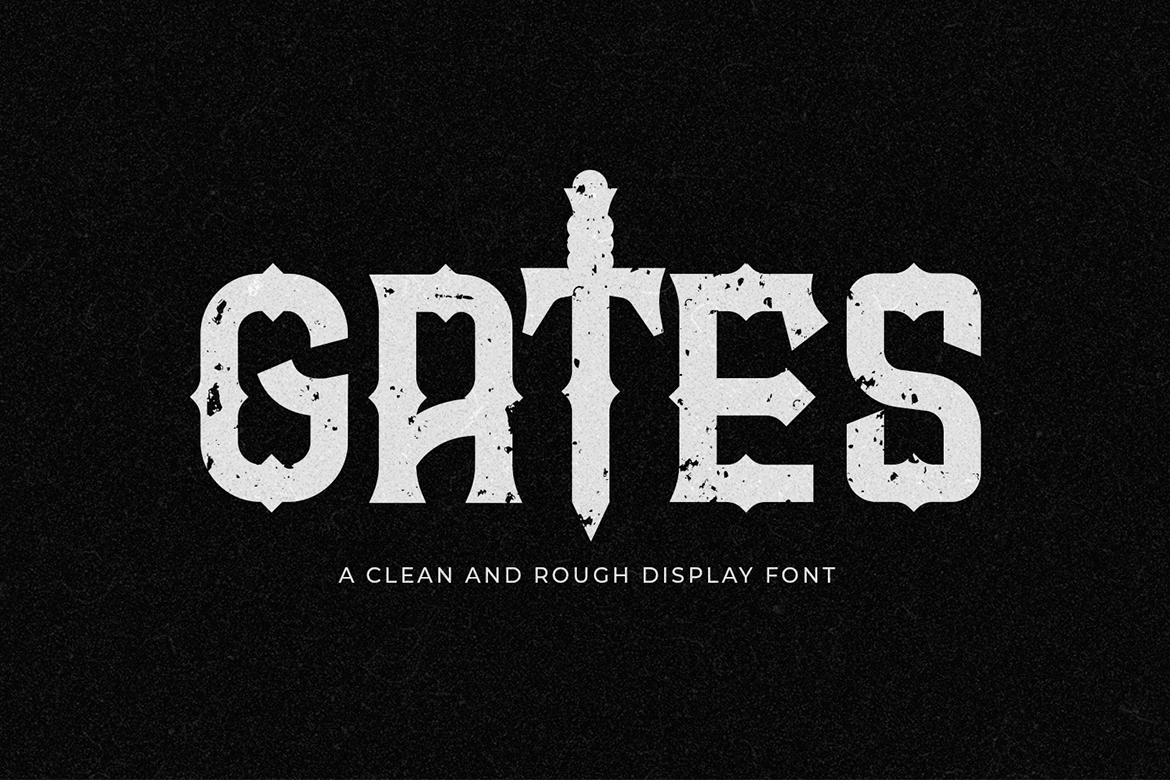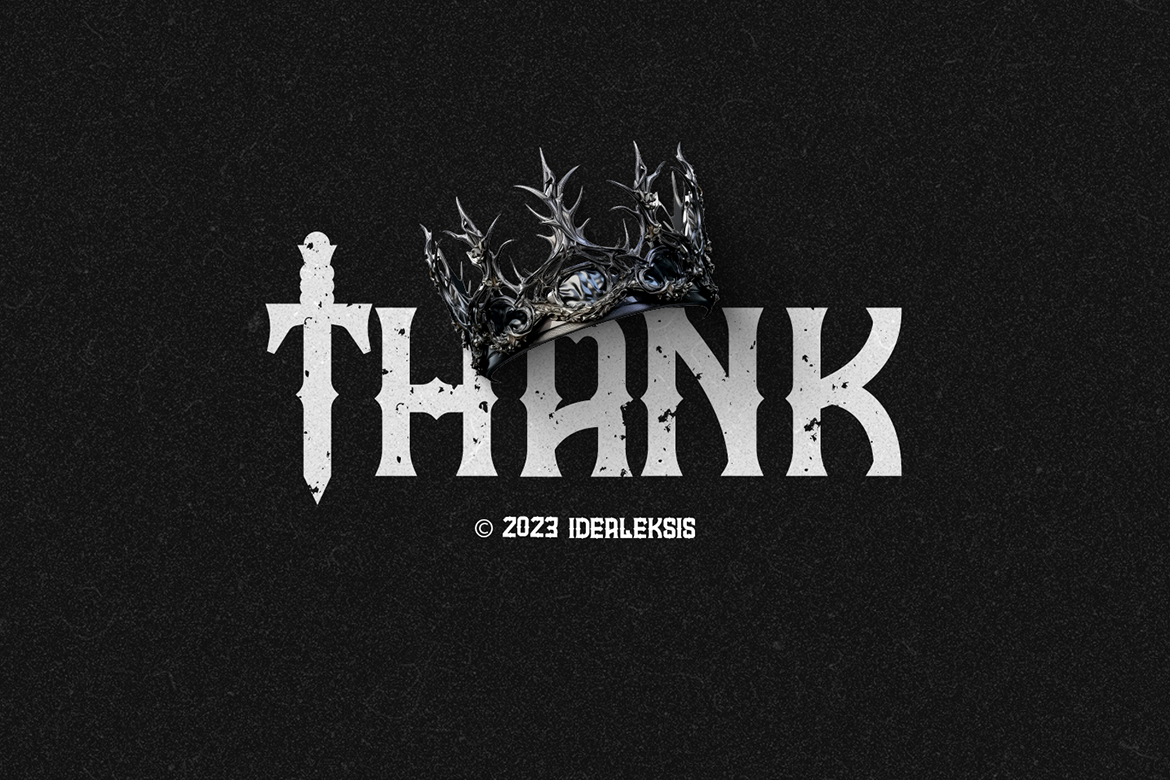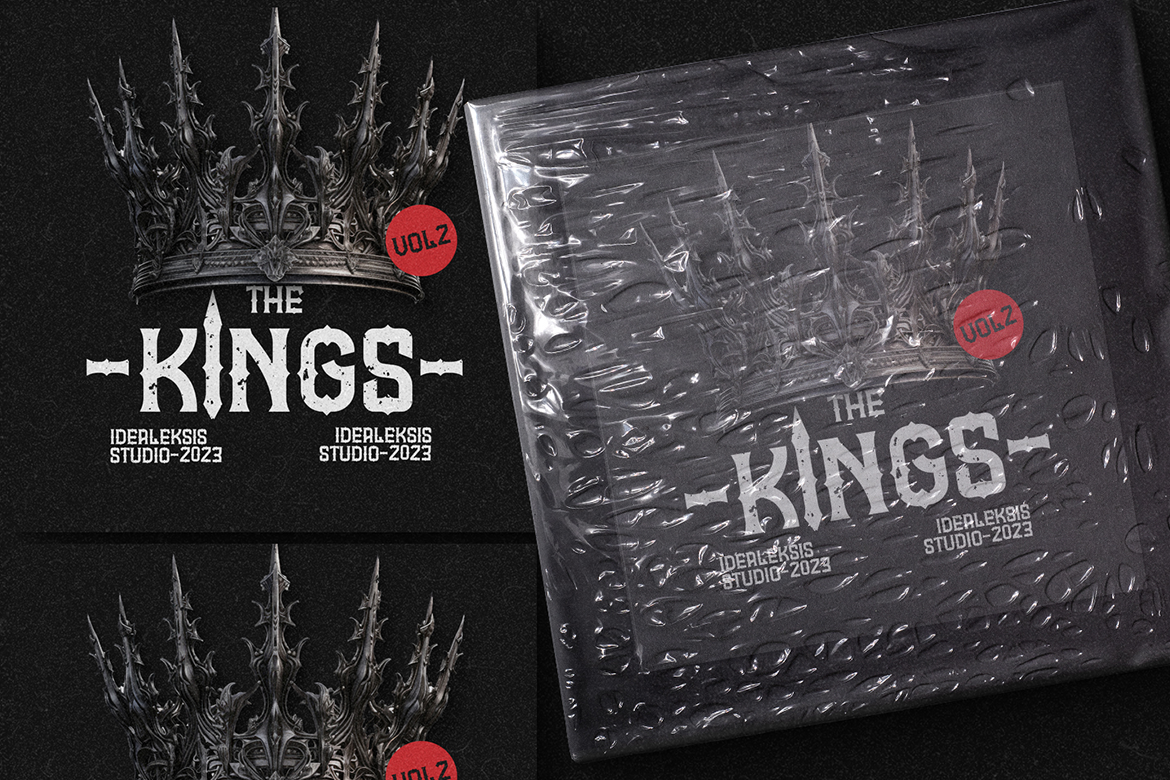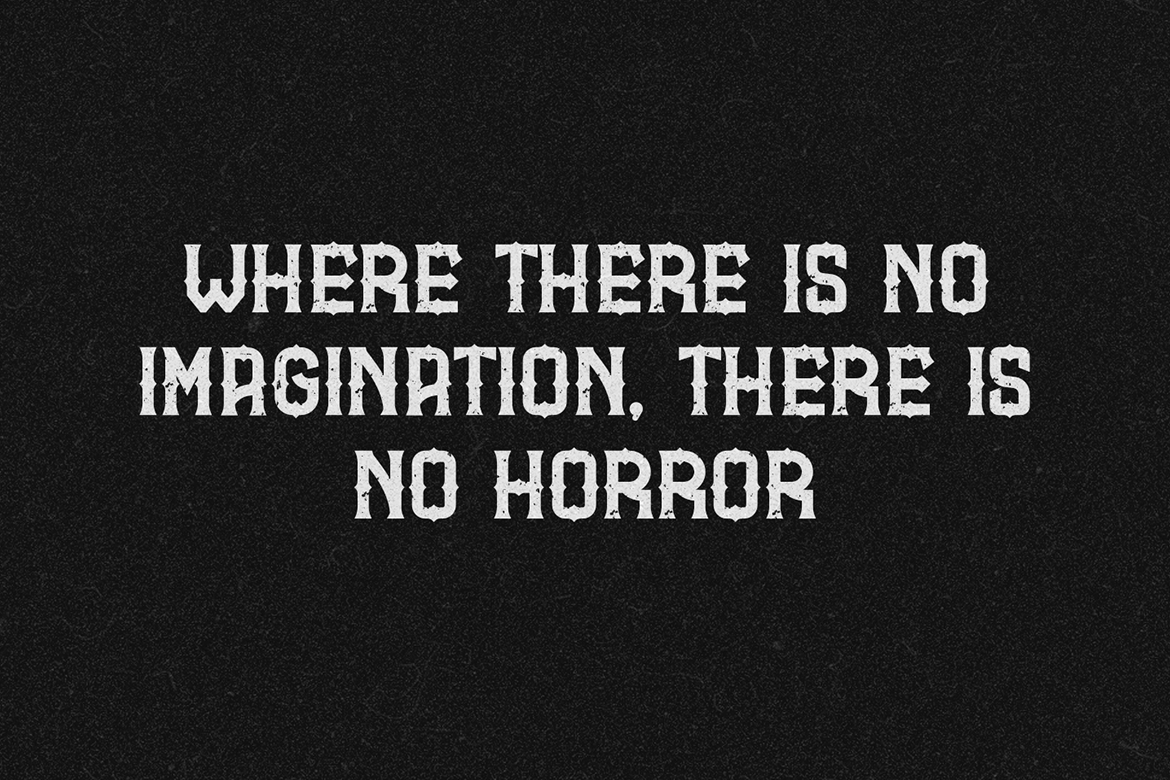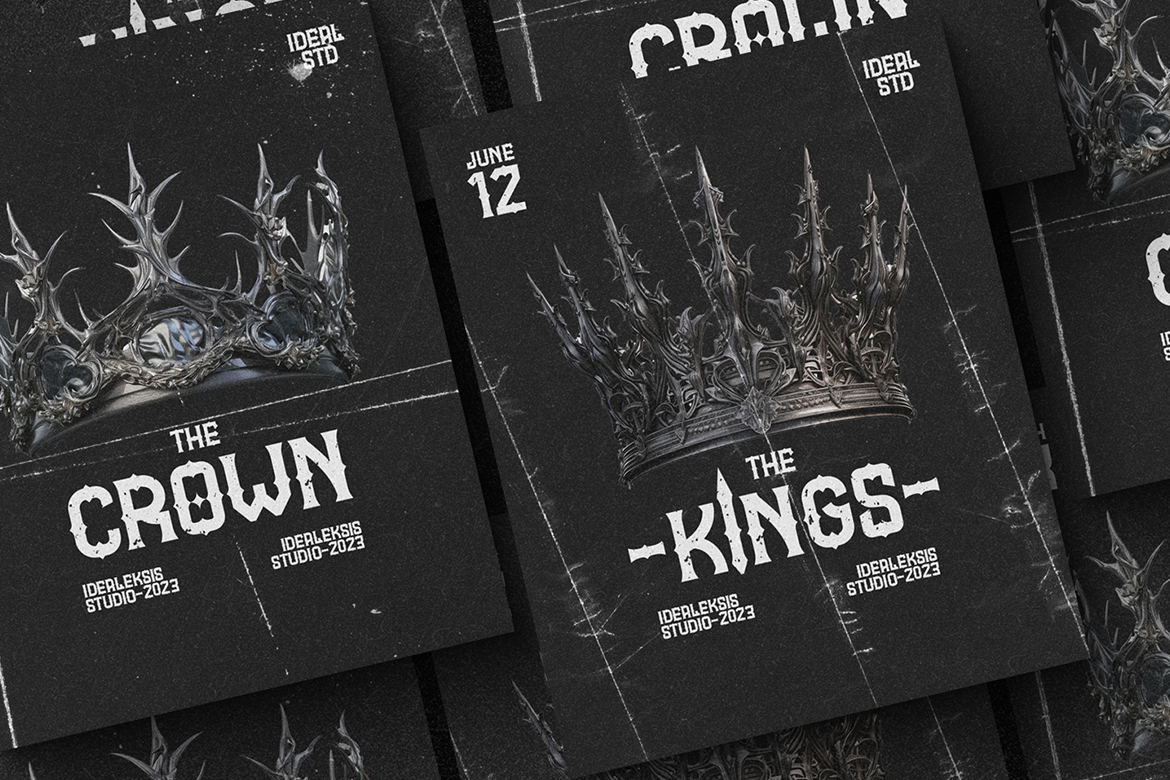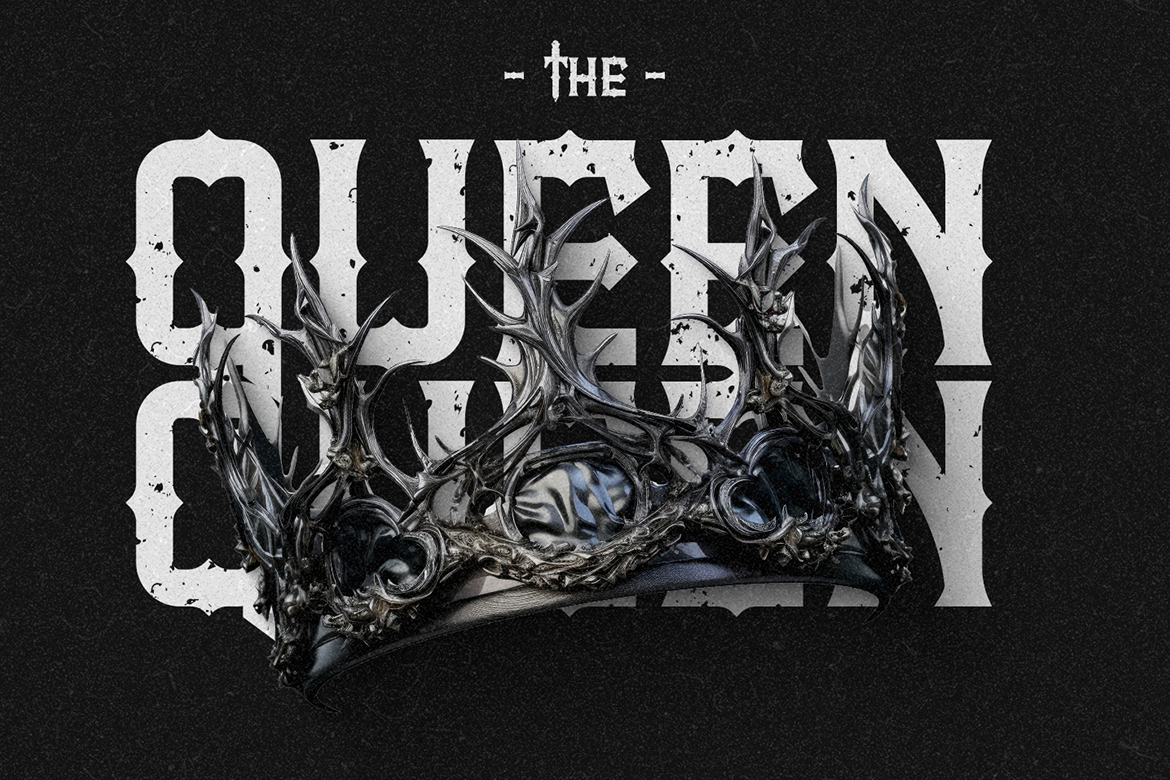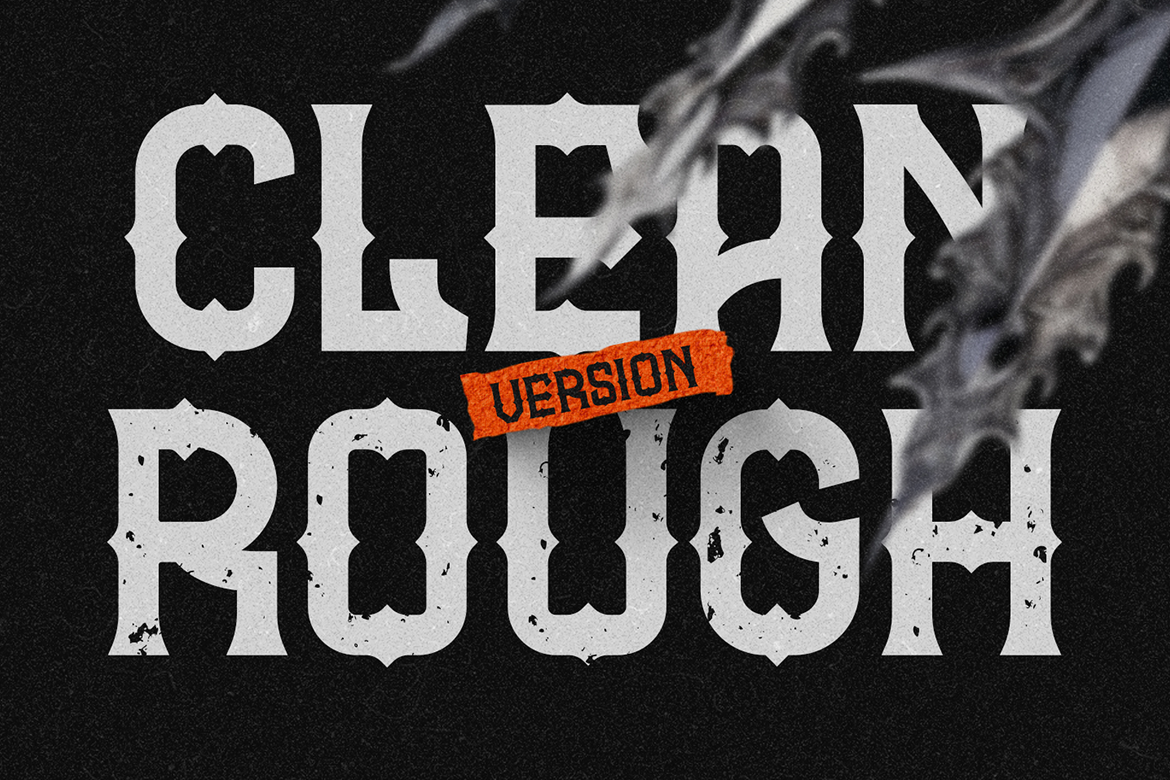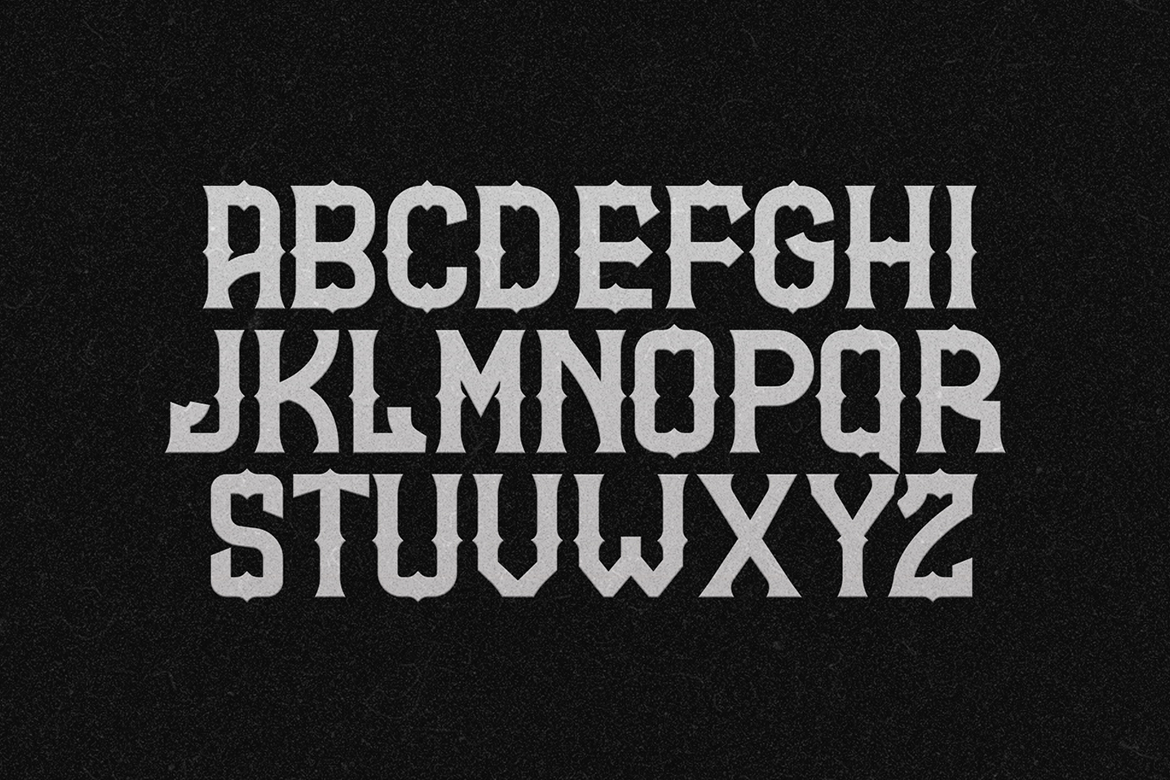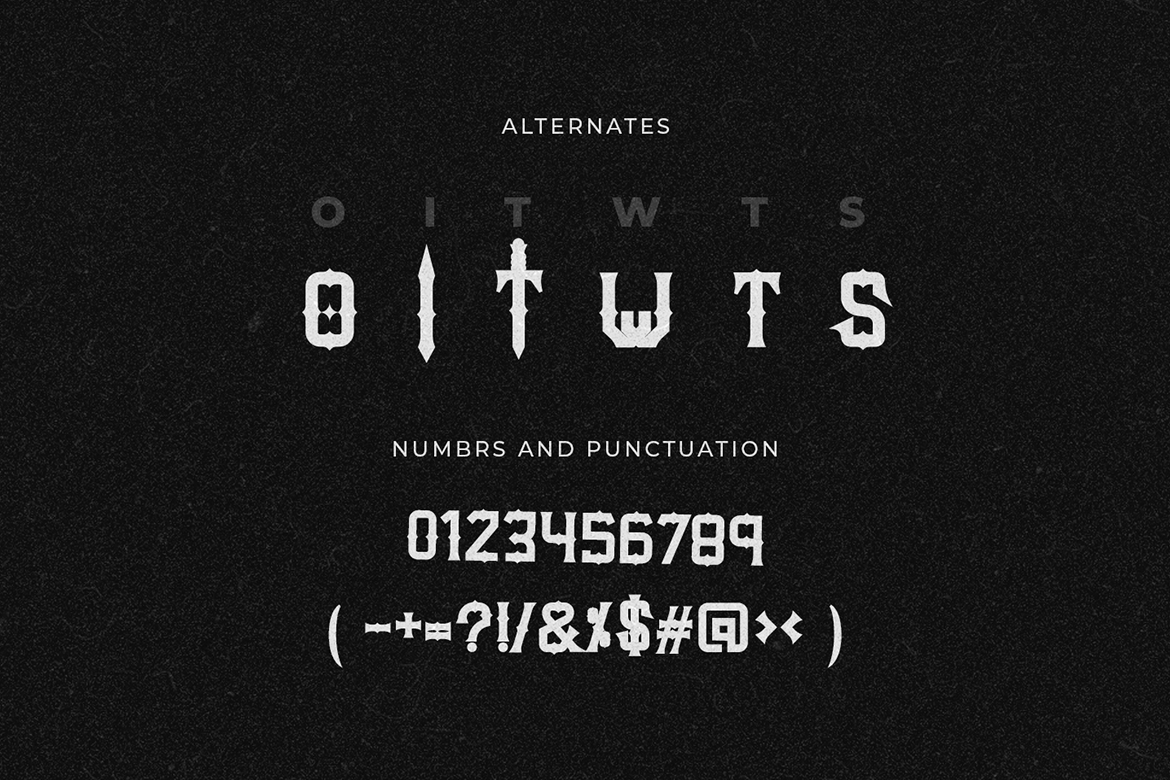
Gates
Gates is a clean yet rough display with a bold vintage style and distressed texture. Designed with a strong medieval touch, it’s perfect for posters, logos, game titles, tattoo designs, and projects that need a gritty, powerful aesthetic. In Package : TTF WOFF WOFF2 Feature : Clean And Rough Style Uppercase (ALL CAPS) Numerals Punctuation Easy To Install